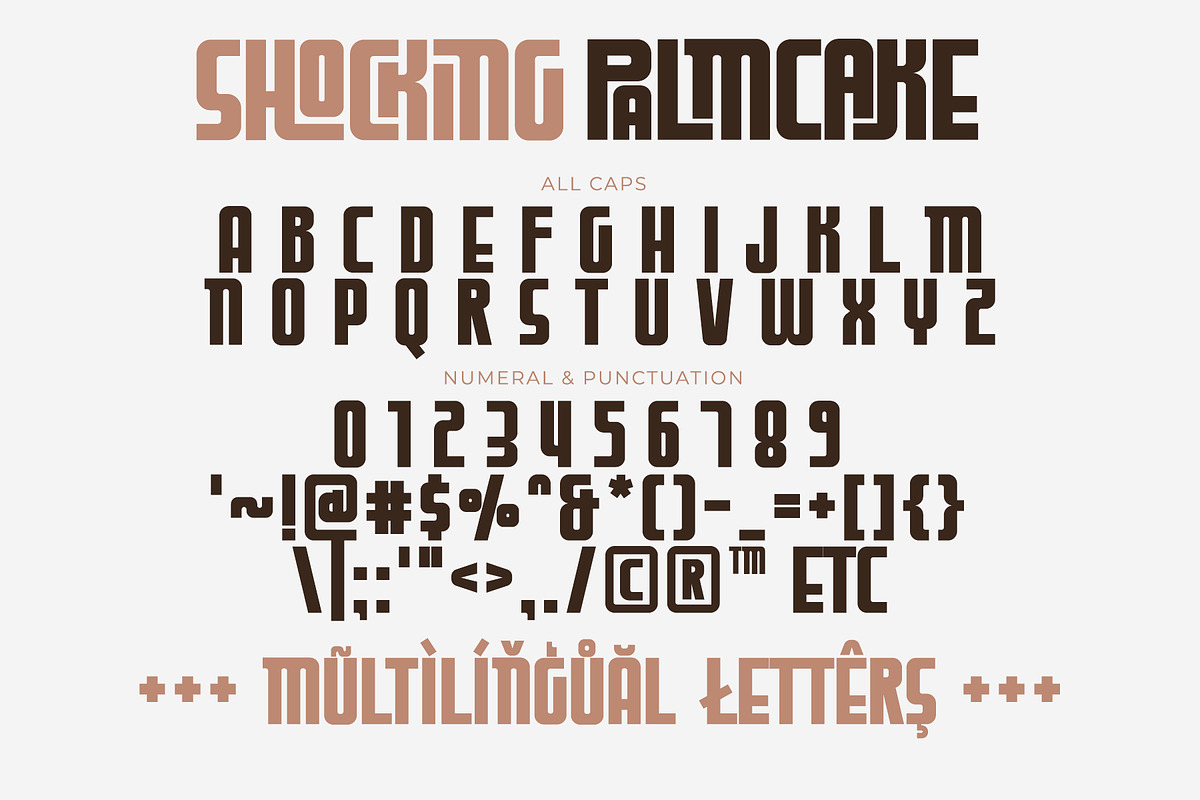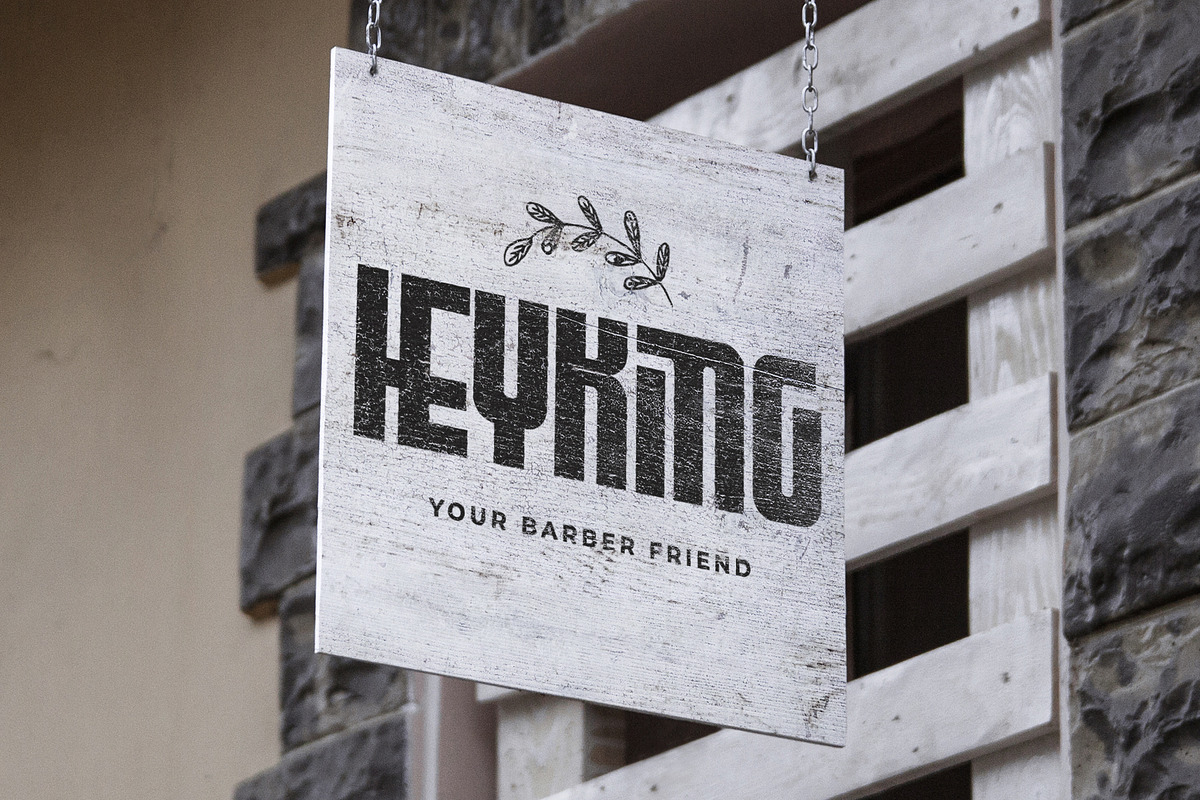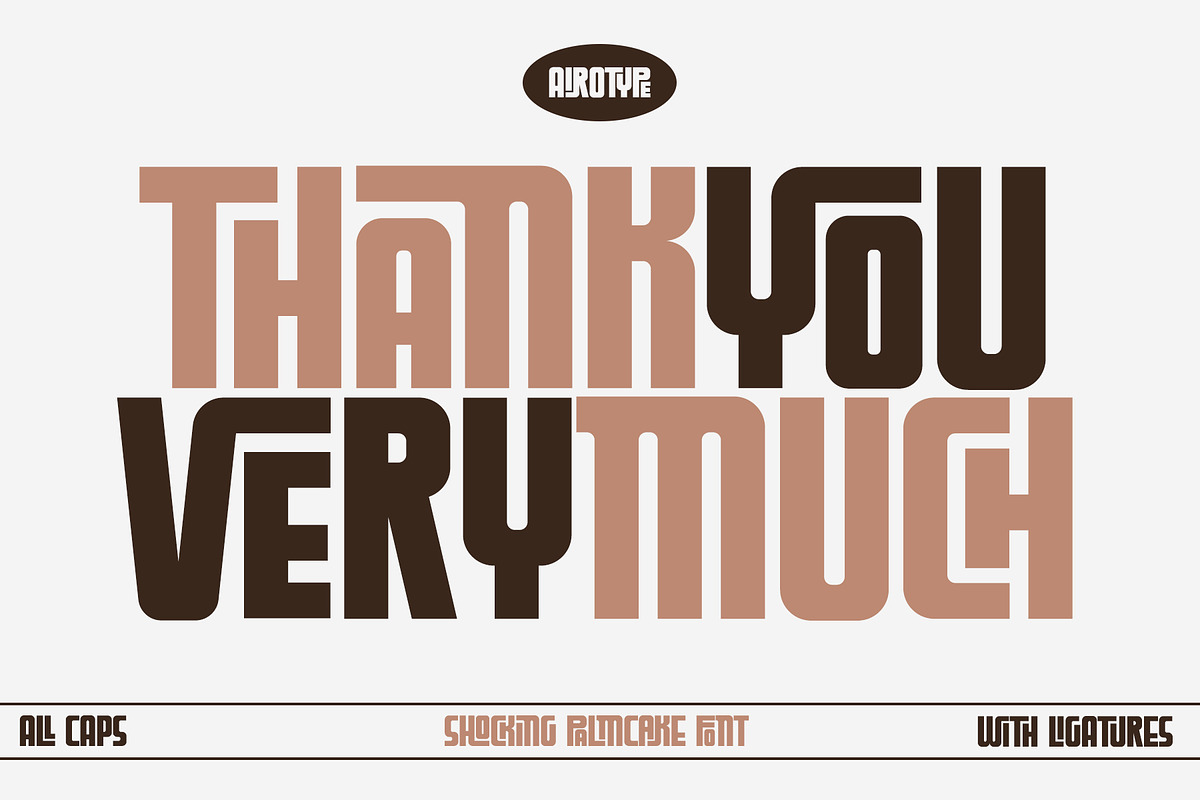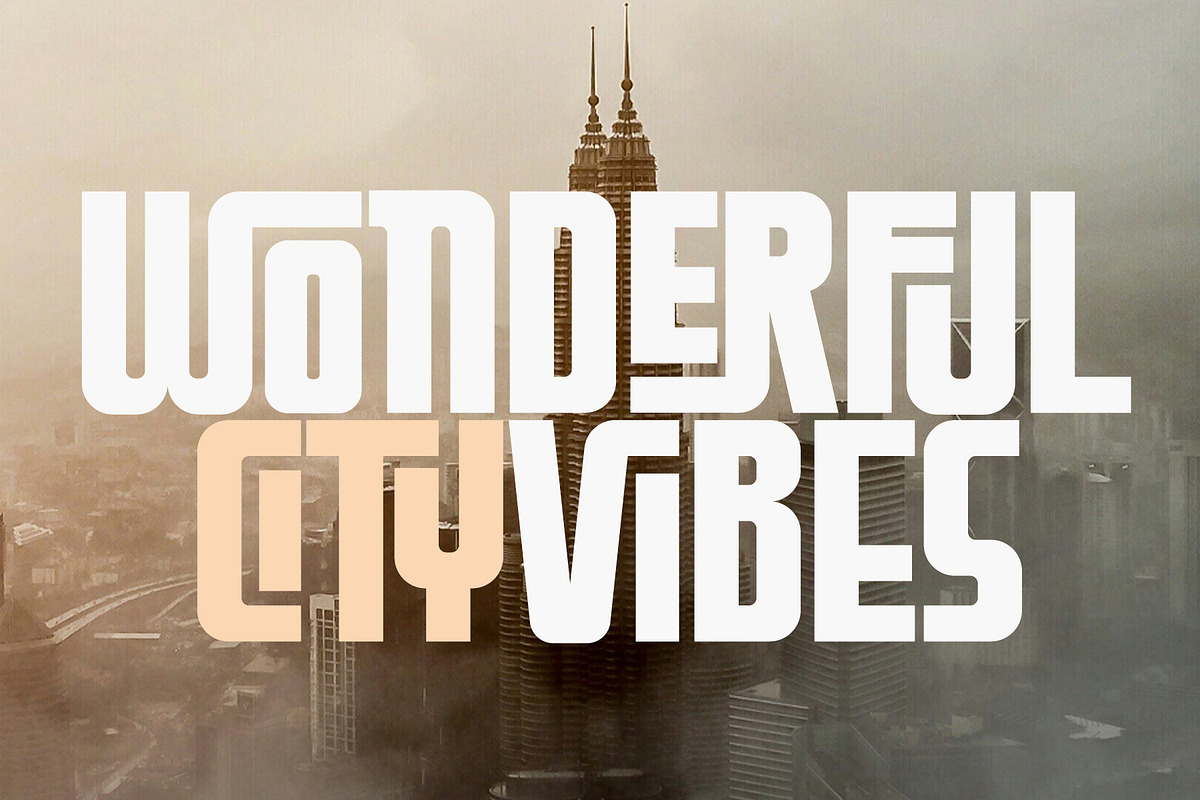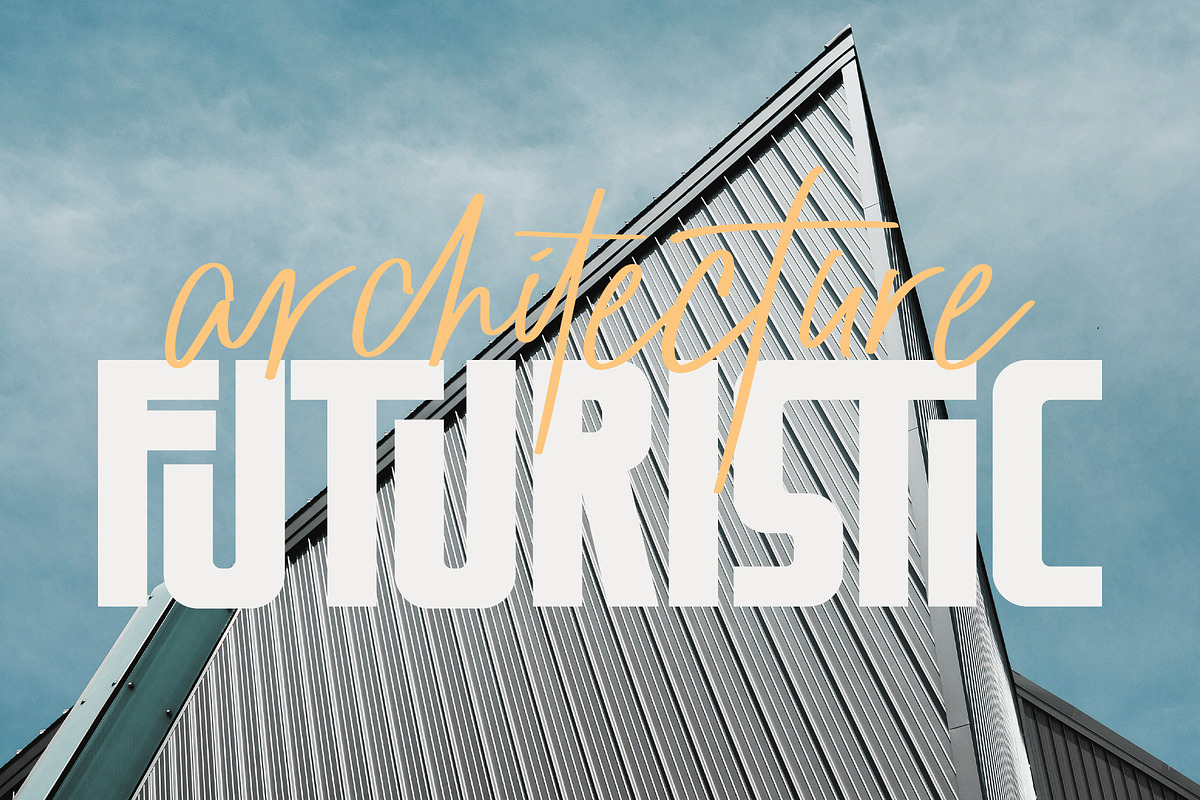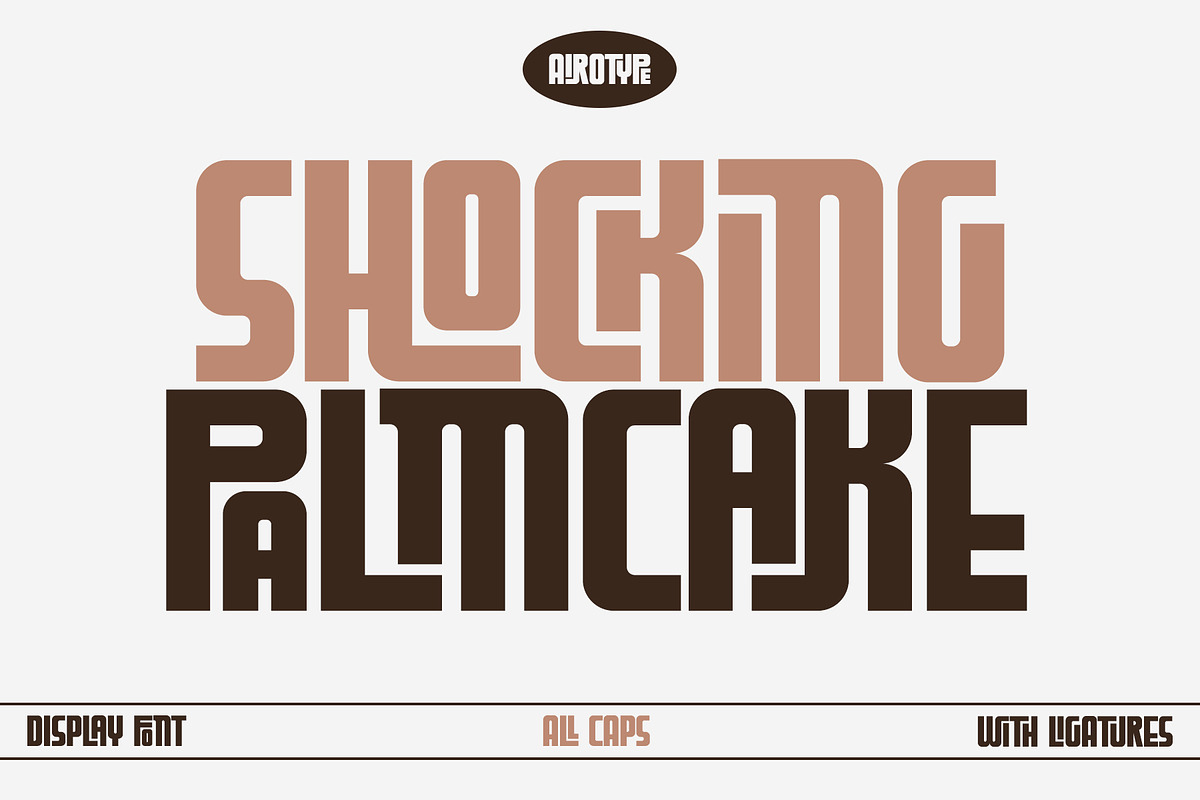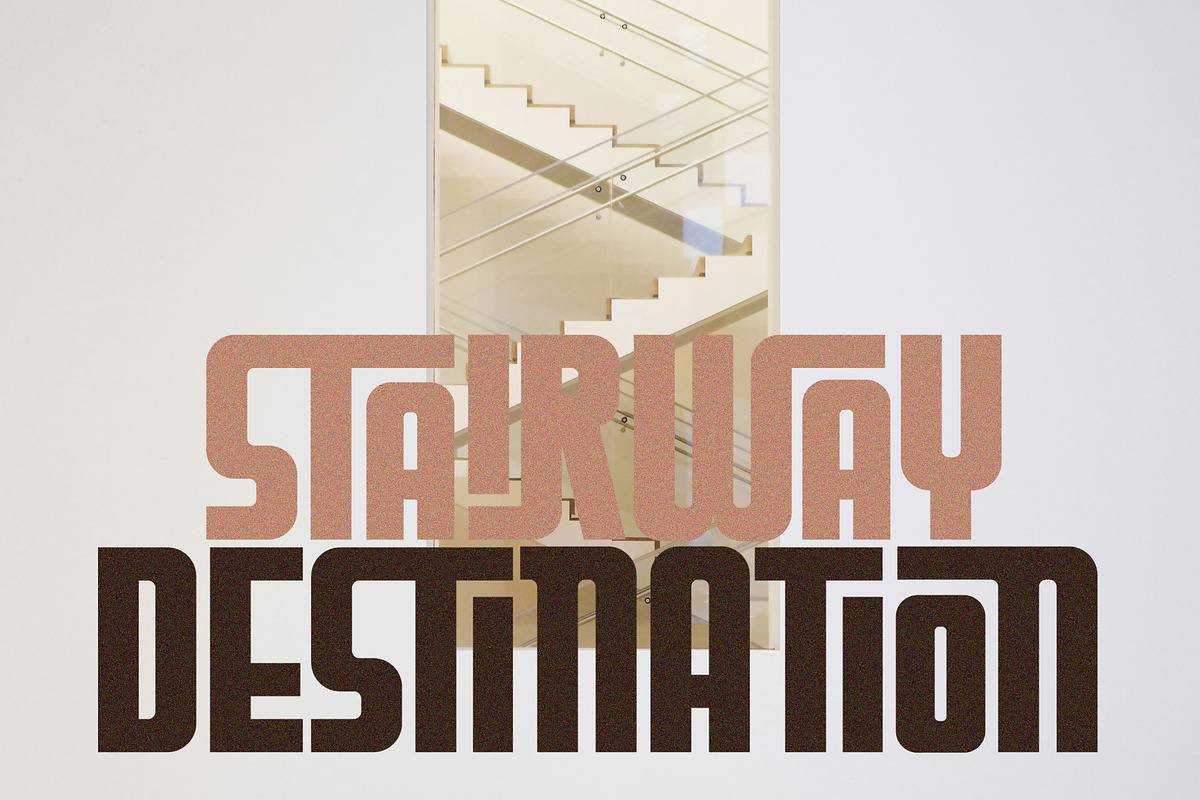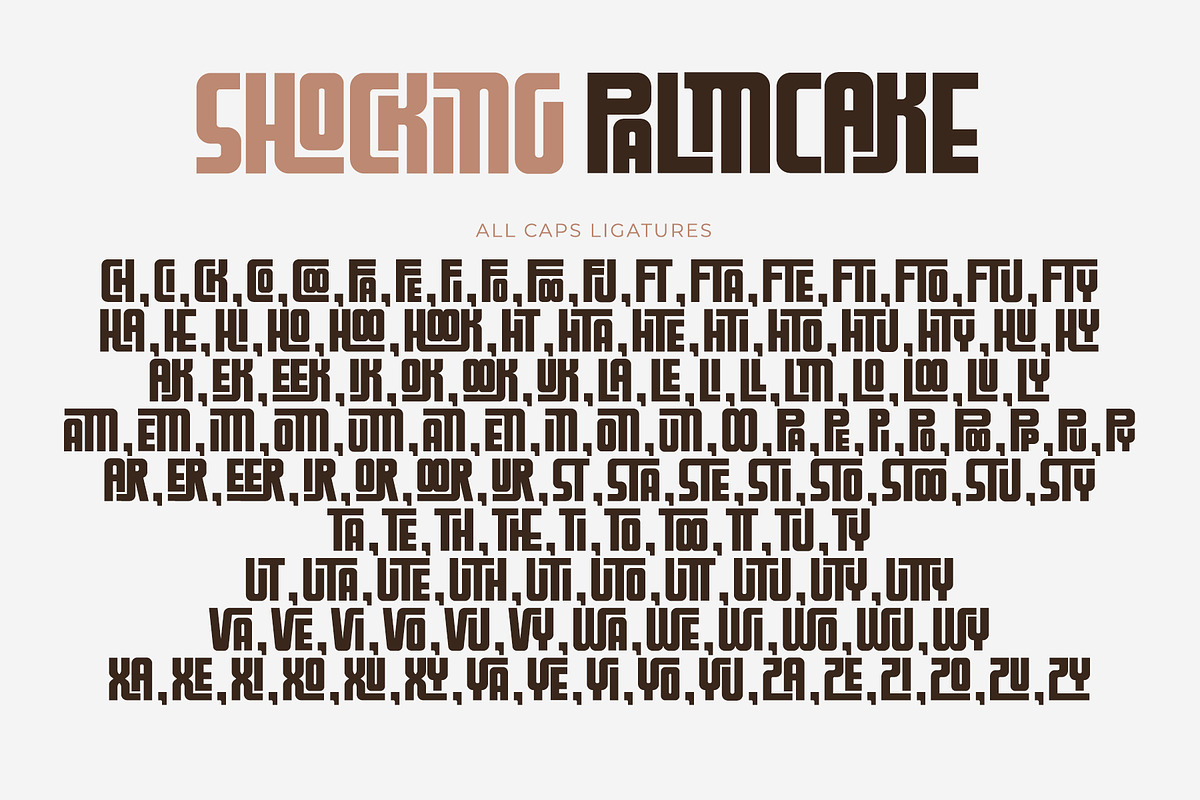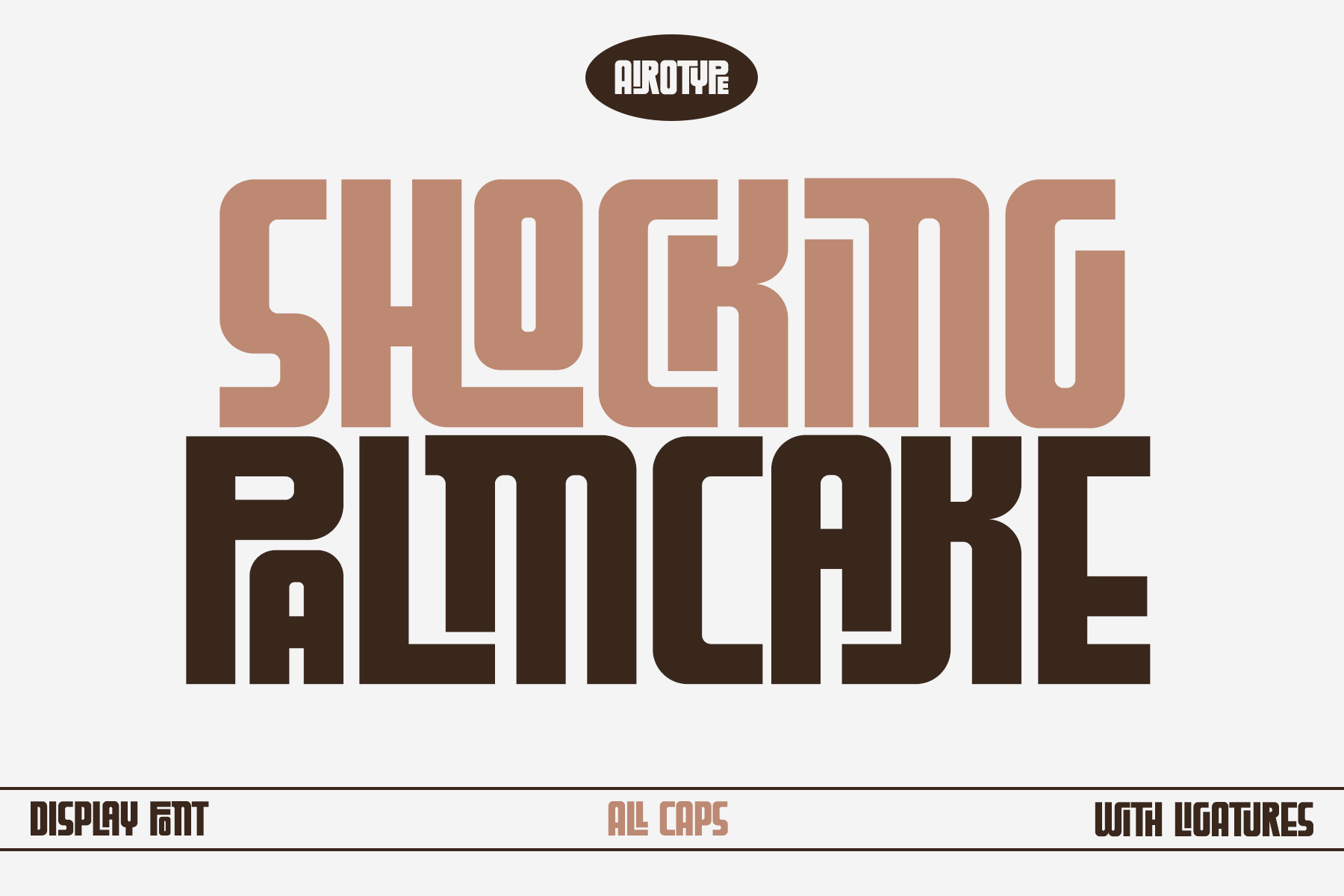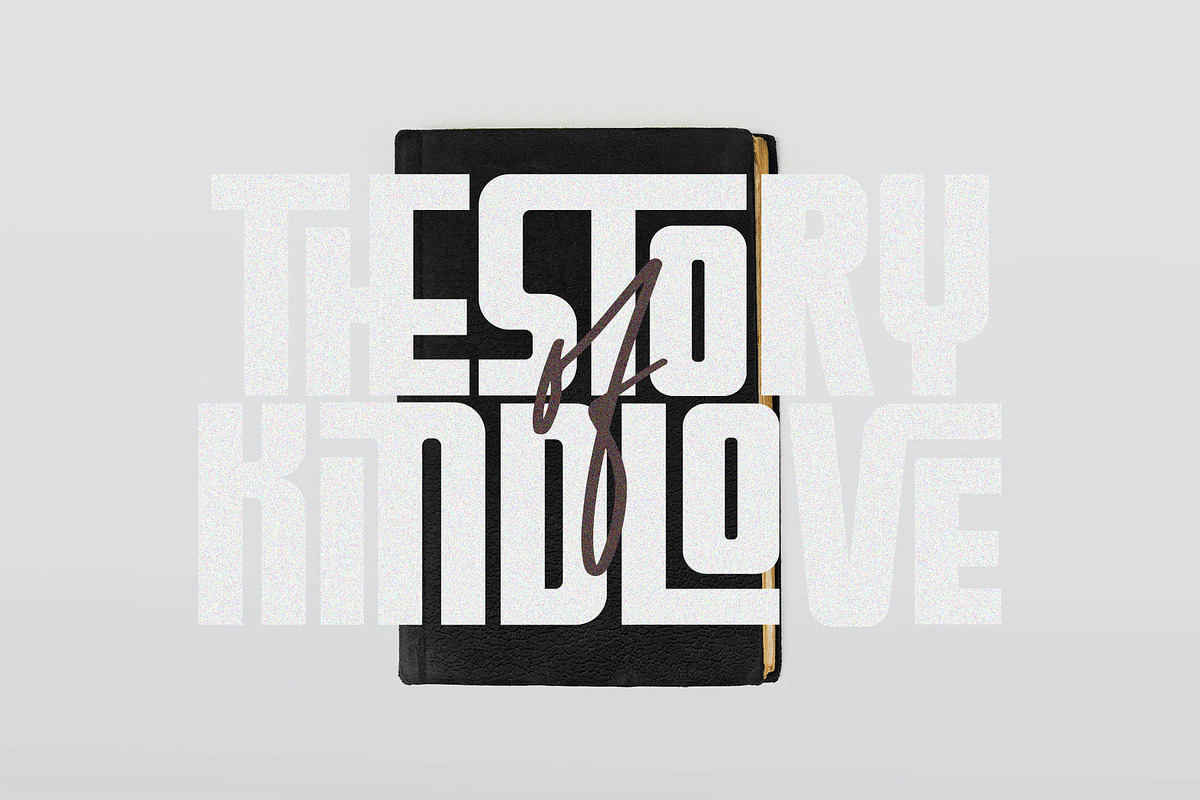
Shocking Palm Cake - Ligature Font
Shocking Palm Cake is all caps sans font with bold and high shape. It is modern, futuristic, and firm.
This font has tons of ligatures for more options in designing.
All Caps with ligatures
Numeral and Punctuation
Most Multilingual Accent